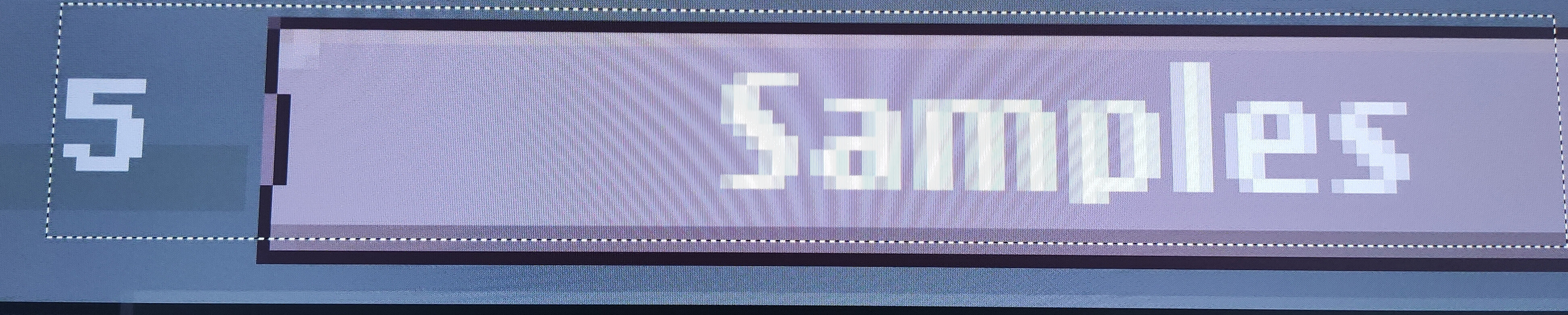
How do I keep my font from looking all smudgy and blurry from being anti-aliased when at small sizes?
Hello, I use this font and at 12 it’s very blurry.
I use this font too, but it’s not blurry at all (so, very good)!
How I can change this, please?
You font lacks hinting which is mainly used to improve visibility of glyph outlines at small sizes.
Hello, thx for your reply, but it doen’t solve the issue:
At the right, the issue (“5” looks good and it’s a another font) :